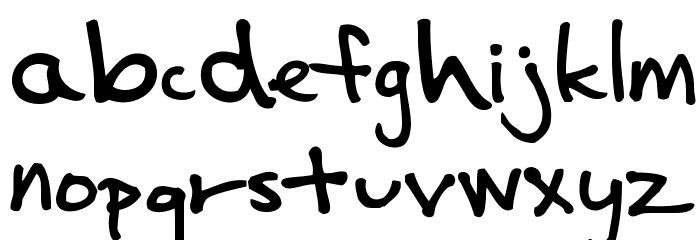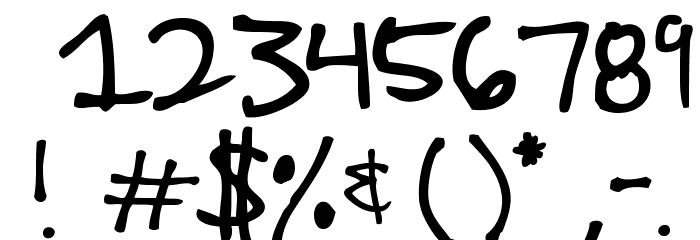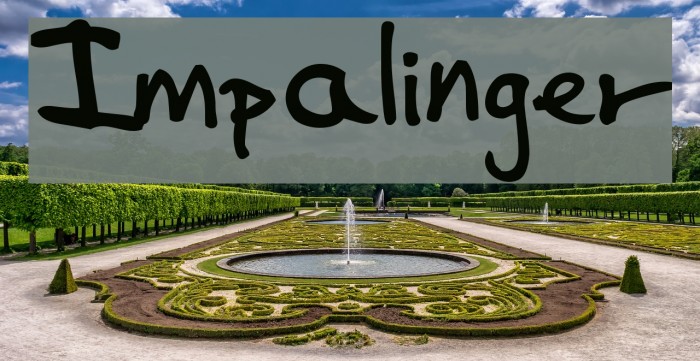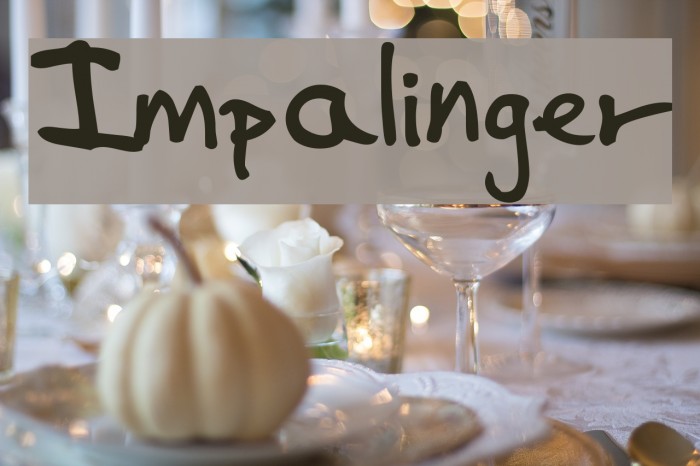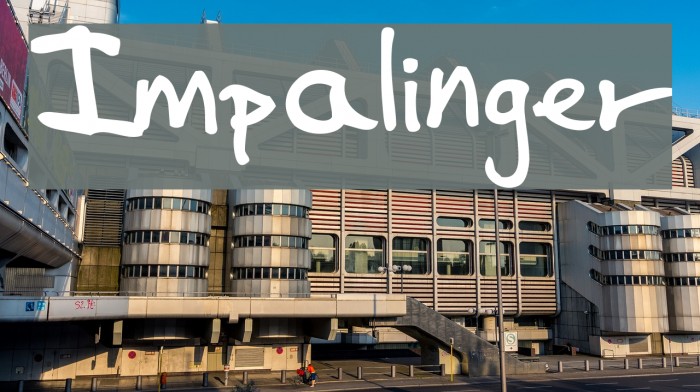
Impalinger Font
This font exhibits a playful and casual handwritten style, characterized by its irregular and organic letterforms. The strokes are uneven, giving it a dynamic and lively appearance. The uppercase letters are bold and slightly larger than the lowercase, which are more rounded and compact. Numbers are consistent with the overall style, maintaining the same playful and informal look. Special characters are creatively designed, adding to the font's whimsical nature. This font is ideal for projects that require a personal touch or a sense of informality.
A playful, casual handwritten font with dynamic and irregular strokes.
- Proposed Projects: Ideal for greeting cards, children's books, informal invitations, and playful branding.
- Category: Handwritten
- Overall Style: Casual
- Use Case: Headlines, Informal text, Creative projects